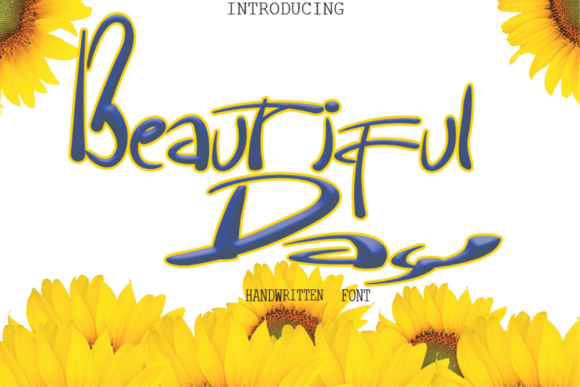
Step into a world of charm and elegance with Beautiful Day Font, a script font family that will transform your creative projects into masterpieces. Crafted with love by Millea Creative, this font exudes a timeless beauty that will leave you breathless.
Visualize the stunning wedding invitations, heartfelt thank-you cards, and captivating quotes that will come to life with Beautiful Day. Its smooth lines and gorgeous glyphs dance across the page, creating an enchanting aura that will captivate your audience. The varying baseline adds a touch of playfulness and dynamism, ensuring that your designs stand out from the crowd.
Beautiful Day is the perfect choice for those who seek a touch of elegance and sophistication in their designs. Whether you're creating logos, business cards, or any other project that demands a handwritten feel, this font will elevate your work to new heights.
Embrace the beauty of Beautiful Day and allow your creativity to soar. Immerse yourself in the world of this exquisite font and watch as your designs blossom into works of art. With its undeniable charm and versatility, Beautiful Day is the key to unlocking your creative potential.